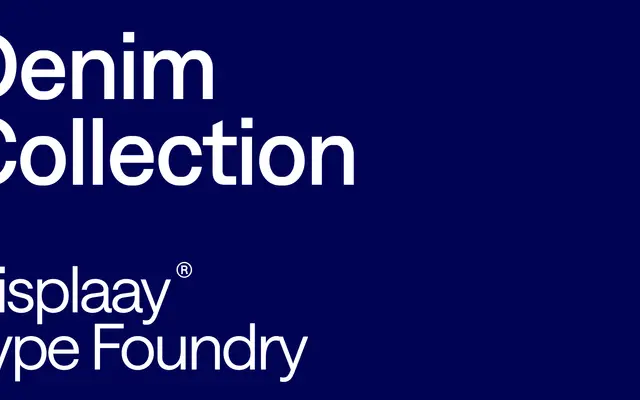
A four-family grotesque collection spanning 24 weights and 48 styles, with variable axes for weight, slant and width, and coverage across Latin, Cyrillic and Greek scripts.
Denim is a grotesque sans-serif collection comprising four families: Denim, Denim WD, Denim INK and Denim INK WD, each offered in six weights with matching italics. A variable font with weight, slant and width axes underpins the collection, which is notable for flattened overshoots that give it a consistent optical evenness across sizes. The wide variants (WD) extend the family's range for headline and fashion-adjacent work, while Latin, Cyrillic and Greek coverage makes it suitable for multilingual publishing.
Denim presents as a contemporary grotesque sans-serif with flattened overshoots and variable axes for weight, slant and width, characteristic of a workhorse grotesque family with display ambitions.